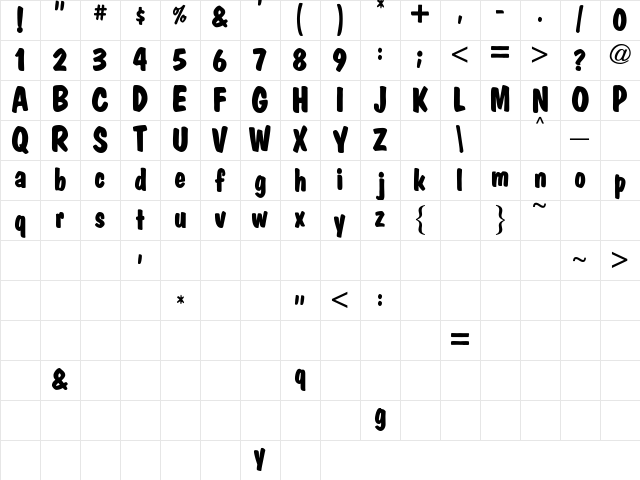
MarketBold Regular Free Font
Design Context for MarketBold
MarketBold is a composed and adaptable typeface that performs quietly and consistently across a wide range of design contexts. Its bold stroke weight gives it real presence on the page.